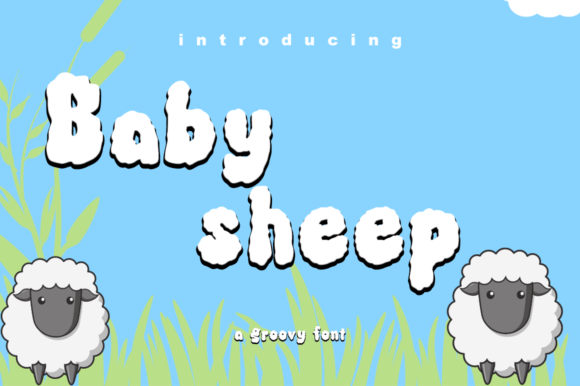
The Joy of Design: Introducing Baby Sheep Font
Have you ever stared at a blank canvas, trying to bring your creative vision to life? The struggle is real, but what if I told you there’s a secret ingredient to make your designs truly shine? For designers, finding the perfect font can be the difference between a good design and a great one. That’s where Baby Sheep Font comes in – a cute and quirky display font that adds an incredibly joyful touch to your creations.
With Baby Sheep Font, you can add a playful and whimsical feel to your designs. Whether you’re working on a children’s book, a birthday invitation, or a social media graphic, this beautiful display font is sure to make your work stand out. As a valuable addition to any designer’s toolkit, Baby Sheep Font is a must-have for anyone looking to add a little extra joy to their designs.
Baby Sheep Font Key Features
- Unique Characteristics: Hand-drawn design, whimsical and playful style, ideal for children’s products and educational materials
Baby Sheep Font Review
I recently had the chance to work with the Baby Sheep Font, and I wanted to share my honest thoughts on it.
The Baby Sheep Font has a unique, playful charm that makes it perfect for projects that need a lighthearted touch. I particularly enjoyed using it for children’s book covers and nursery decor designs.
- The font is highly customizable, allowing me to adjust the size, color, and style to fit my design needs.
While I appreciated the Baby Sheep Font’s versatility, I did encounter a few limitations that made it challenging to use in certain situations.
- The font’s legibility can be compromised at smaller sizes, making it difficult to read in some contexts.
- The font may not be suitable for formal or professional designs, as it can come across as too playful or childish.
Overall, I would recommend the Baby Sheep Font for designers looking to add a touch of whimsy to their projects. While it may not be suitable for every design task, it’s a great option for those who need a playful, customizable font.
Tips for Getting the Most Out of Baby Sheep Font
1. Use the font in conjunction with playful and whimsical graphics to create a cohesive design.
2. Experiment with different font sizes and colors to add visual interest to your design.
3. Use the font to add a touch of whimsy and personality to your design.
Common Use Cases for Baby Sheep Font
1. Children’s book covers and illustrations.
2. Baby and nursery-themed designs.
3. Playful and whimsical branding and marketing materials.
Alternatives to Baby Sheep Font
Great Vibes is a beautiful, elegant script font that is perfect for adding a touch of sophistication to your designs. It’s ideal for wedding invitations, stationery, and other creative projects. Great Vibes is more refined and polished than Baby Sheep Font, making it a great choice for high-end designs.
Carolyna Pro is a modern, handwritten font that is great for adding a personal touch to your designs. It’s perfect for social media graphics, advertisements, and other promotional materials. Carolyna Pro is more casual and playful than Baby Sheep Font, making it a great choice for fun and lighthearted projects.
Playfair Display is a luxurious, high-end font that is perfect for adding a touch of elegance to your designs. It’s ideal for wedding invitations, luxury brands, and other high-end projects. Playfair Display is more formal and sophisticated than Baby Sheep Font, making it a great choice for formal and professional designs.